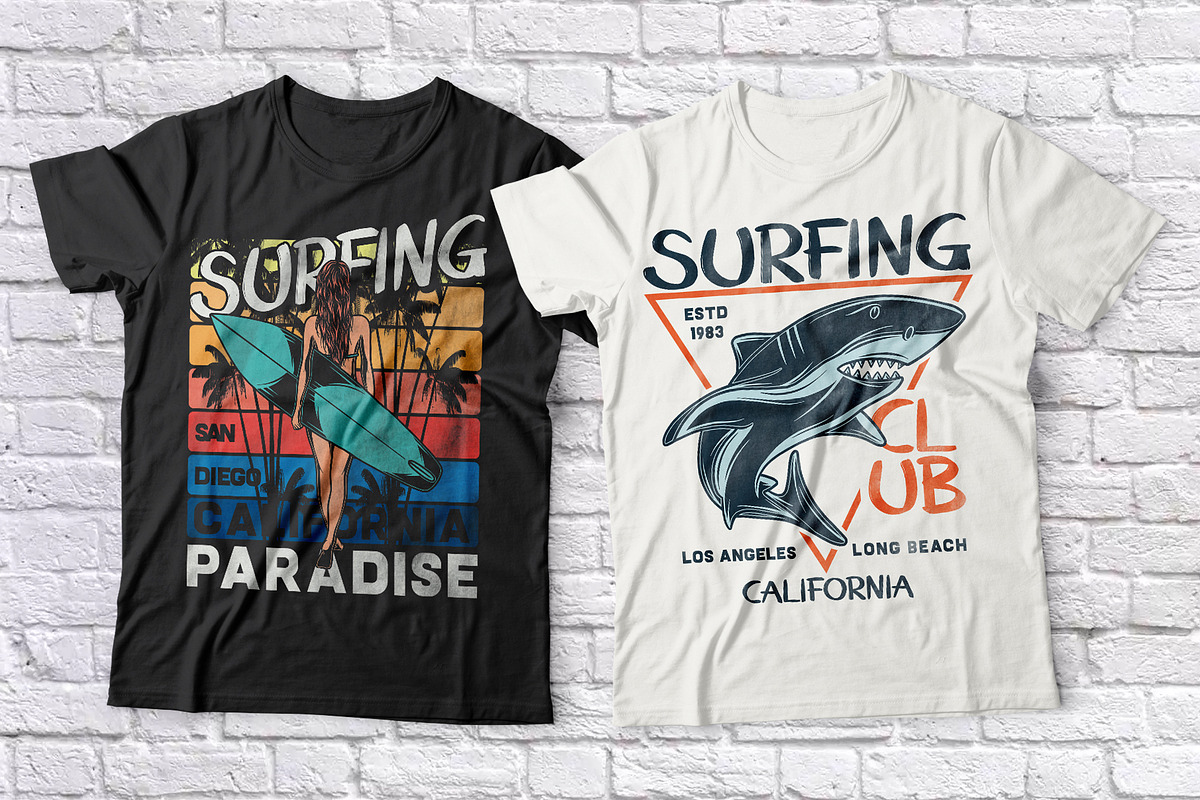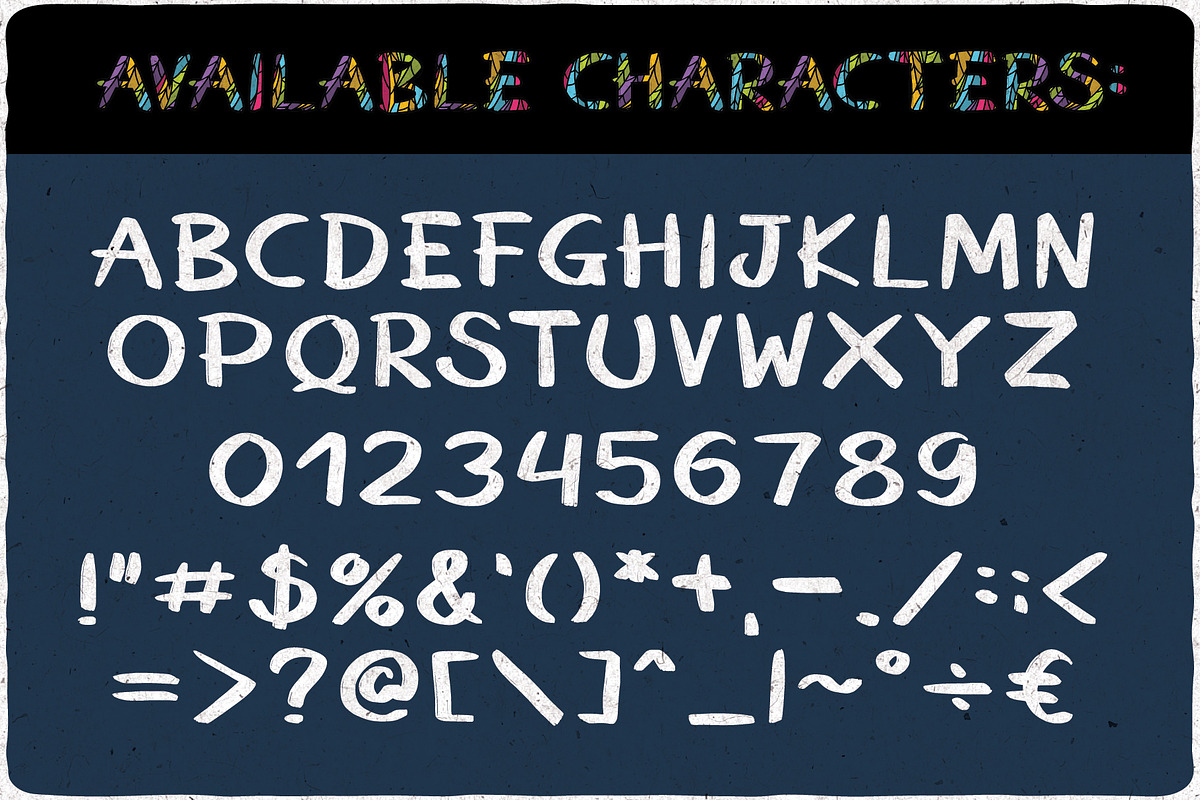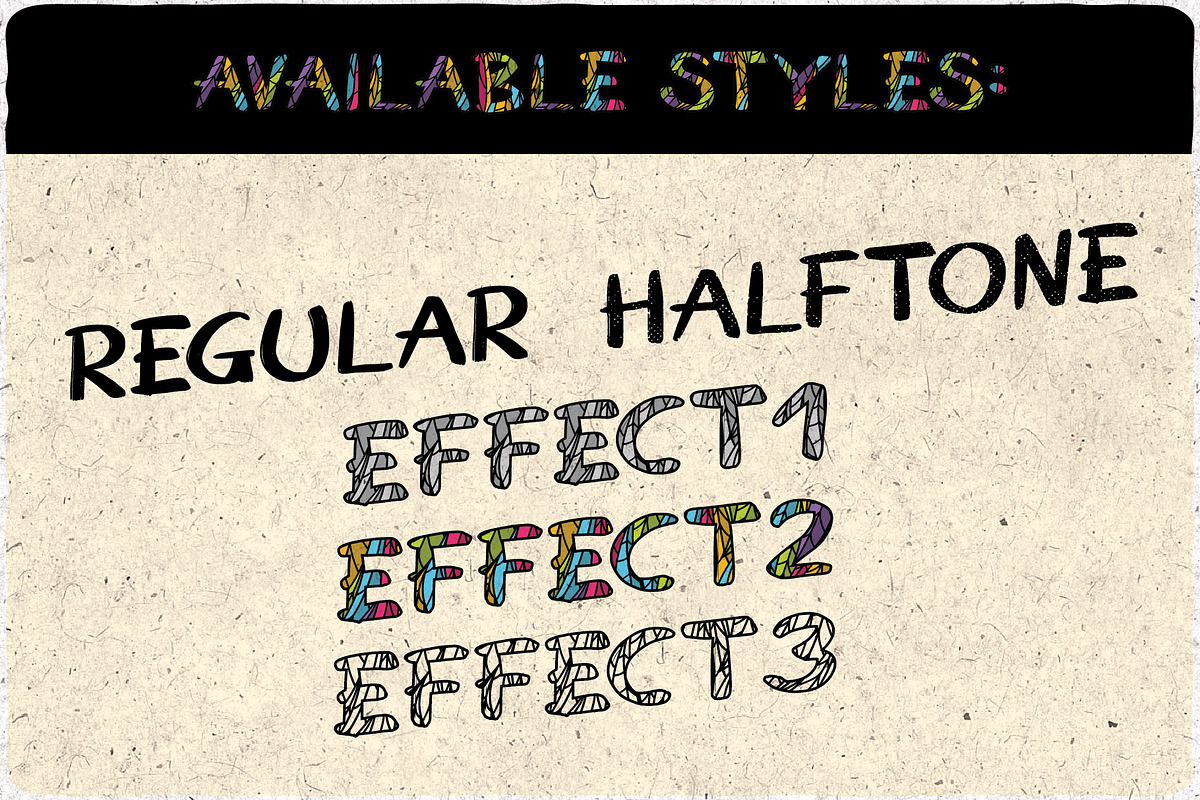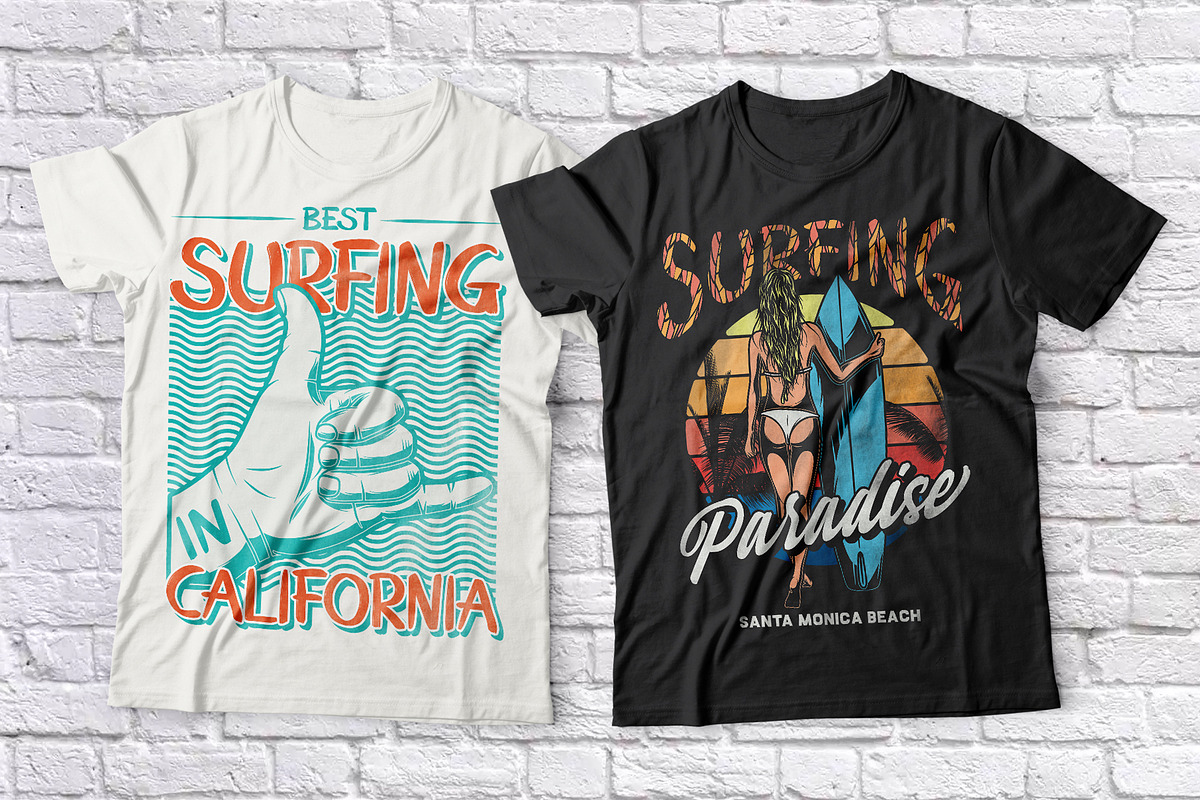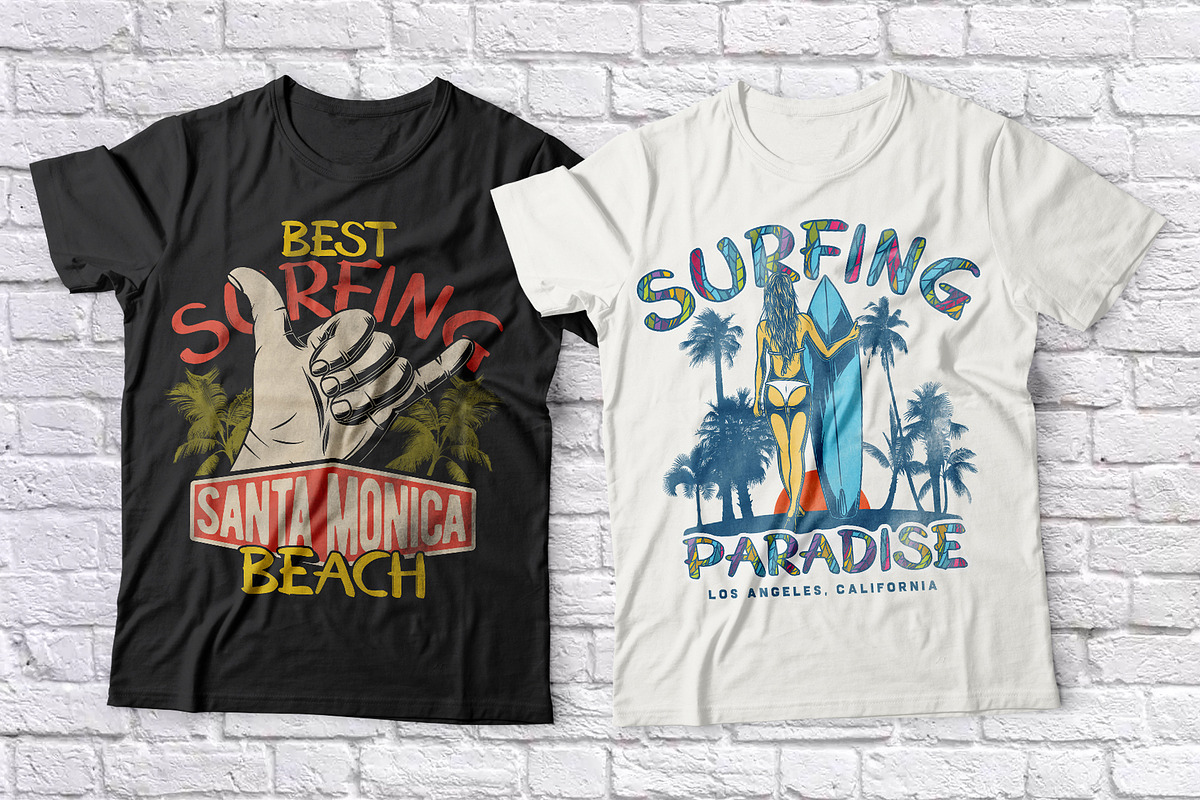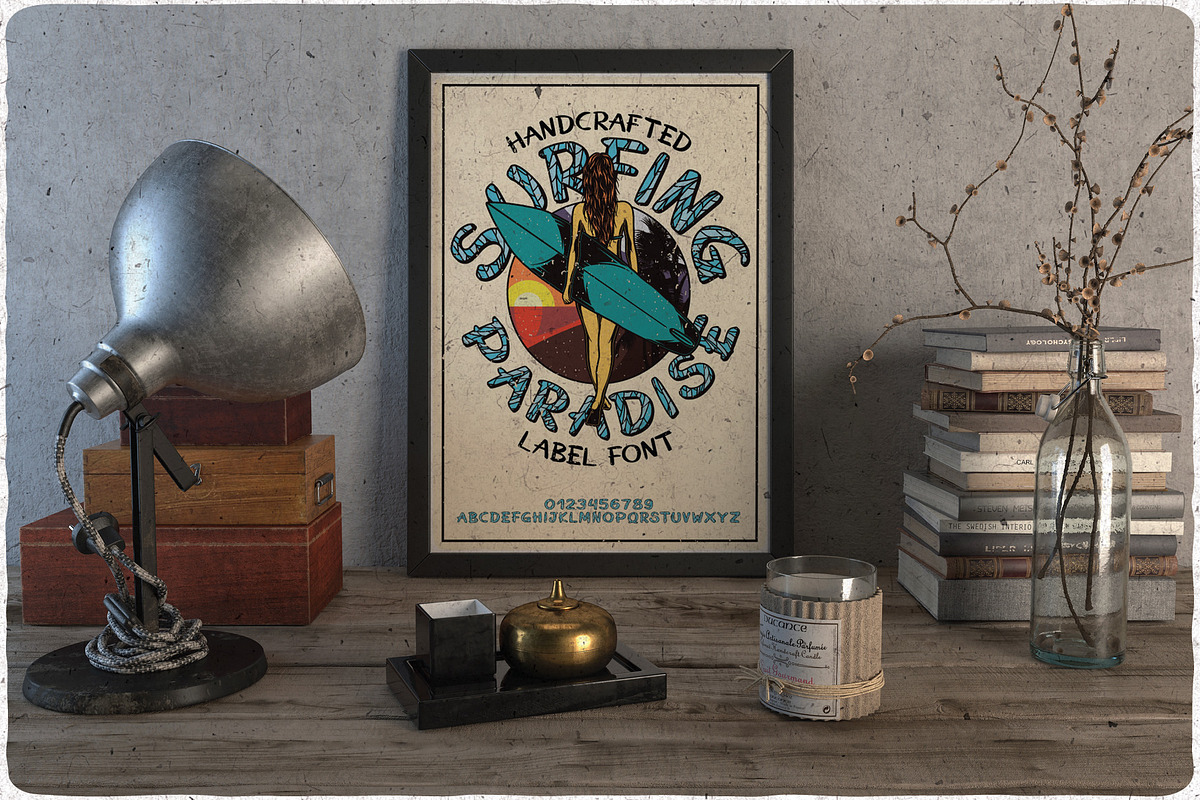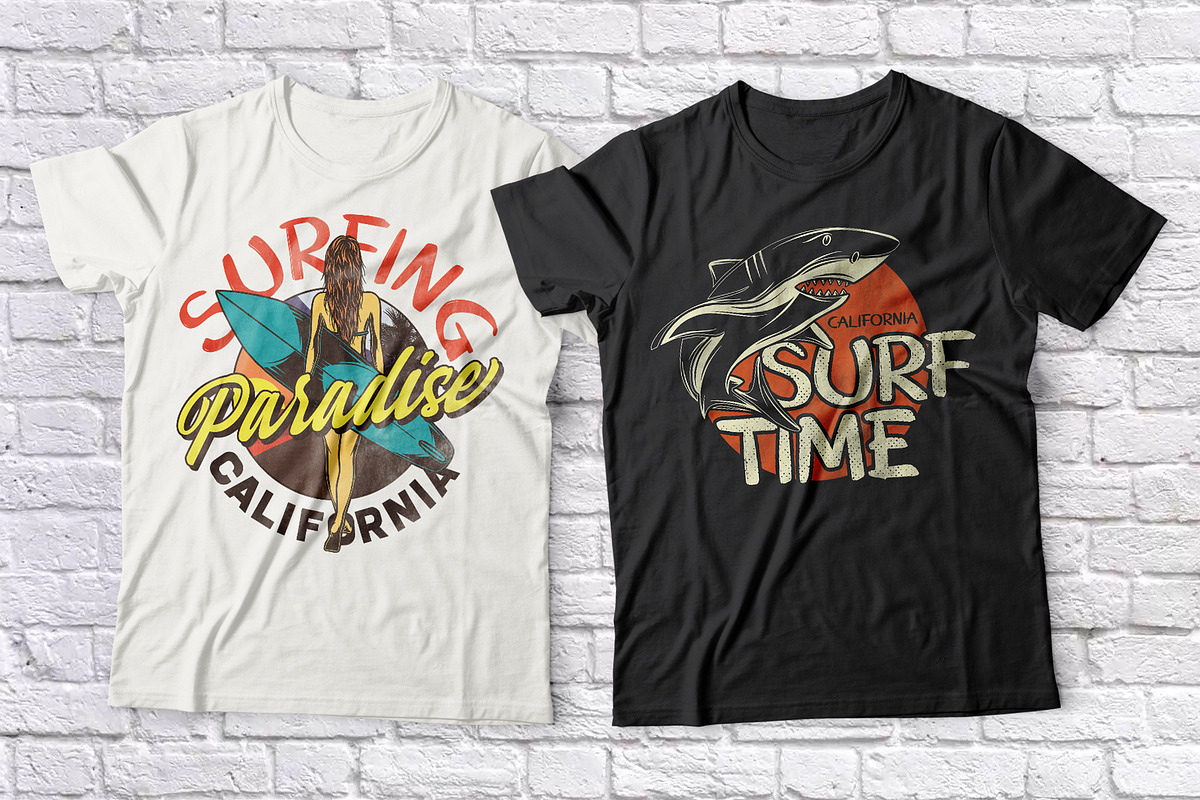
Surfing Paradise font + bonus
Introducing a hand drawn label font named "Surfing Paradise".Typeface includes five styles - Regular, Halftone and three Effect styles (two of them are color fonts). This font will good viewed on any retro design like poster, t-shirt, label, logo etc.